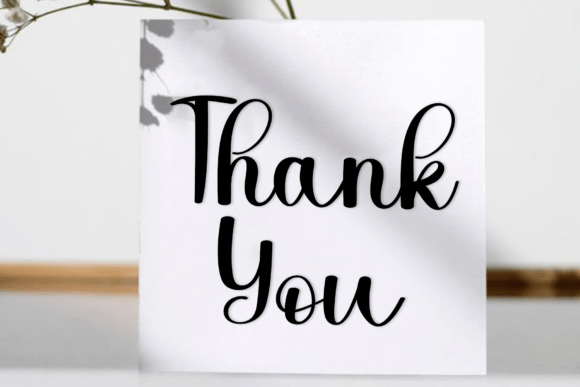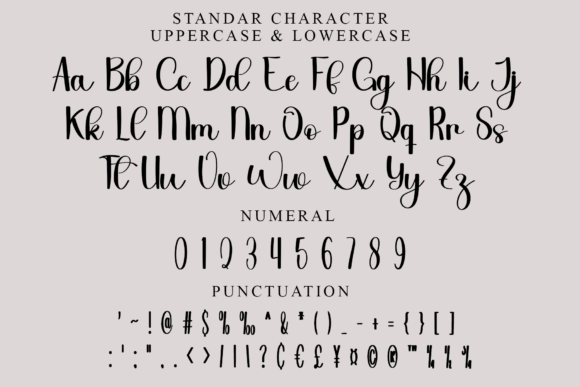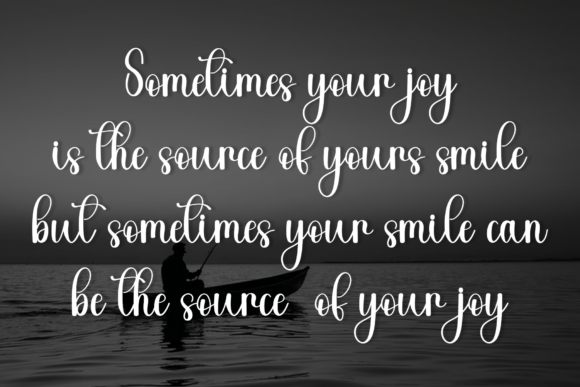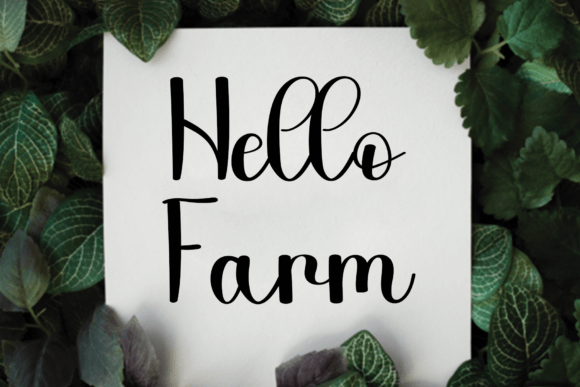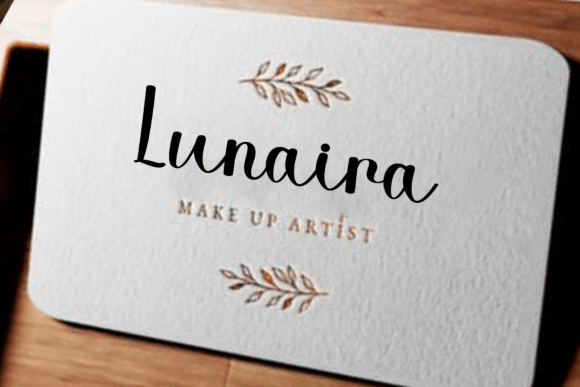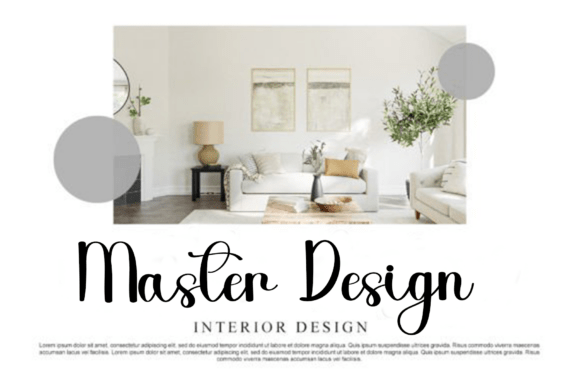
Deck the Halls with Change Font
As the snowflakes start to fall and the twinkling lights adorn the streets, the holiday season is upon us. It’s a time for magic, wonder, and creativity. And what better way to capture the essence of this special time of year than with a font that embodies the spirit of the season?
Enter Change Font, a festive and merry typeface that adds a touch of whimsy and enchantment to your designs. With its decorative elements and nostalgic flair, this font is perfect for greeting cards, gift tags, and holiday-themed projects that need a dash of cheer. Whether you’re a seasoned designer or a DIY enthusiast, Change Font is a valuable addition to your toolkit – and with its PUA encoding, you’ll have access to all the amazing glyphs and ligatures to bring your typography to life.